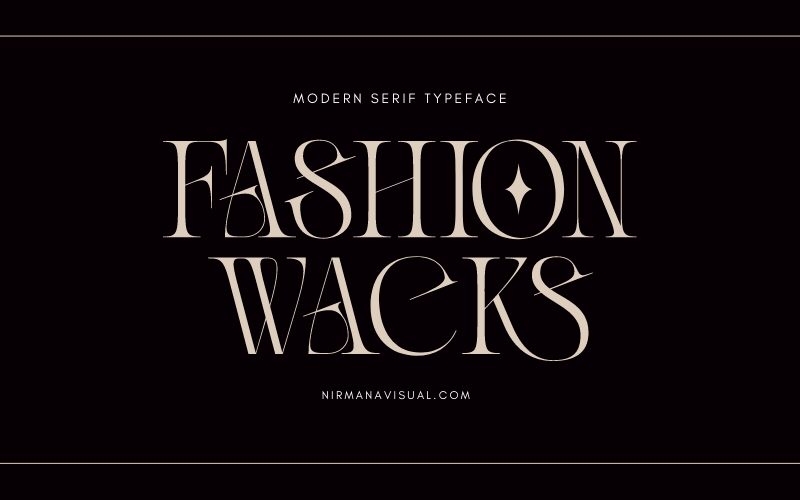
Fashion Wacks is a captivating display font designed by Nirmana Visual. With its retro serif style, this semi-light typeface adds a touch of nostalgia and elegance to any project. Its condensed width makes it perfect for fashion magazines, vintage-inspired branding, or stylish invitations. Whether you're designing a chic logo or creating eye-catching headlines, Fashion Wacks will effortlessly elevate your work with its unique charm and distinctive character. Get ready to make a bold statement and stand out from the crowd with this trendy font choice.
Fashion Wacks